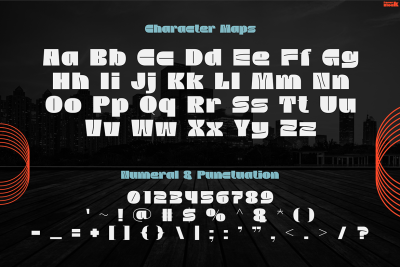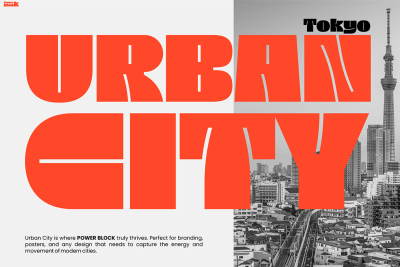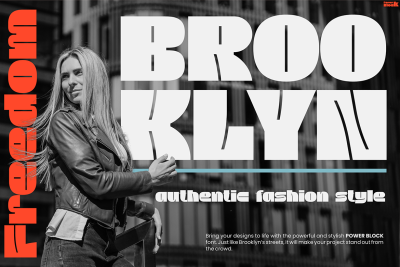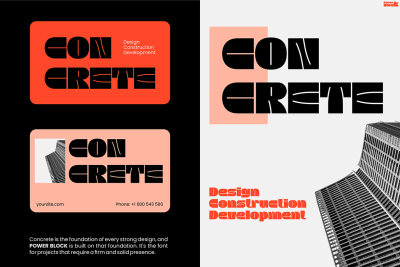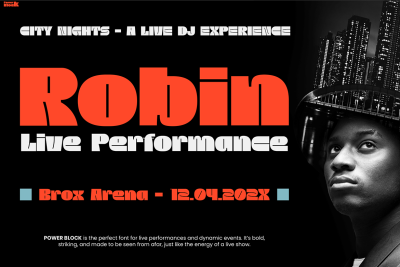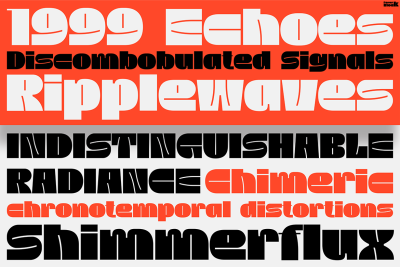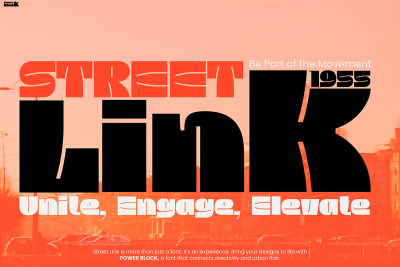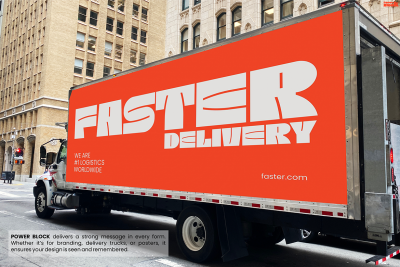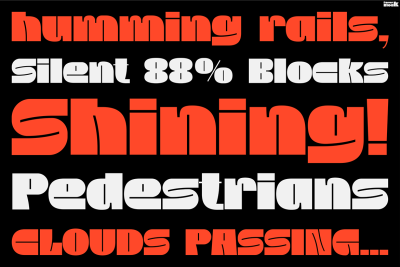
Retro Font Power Block is a bold and dynamic typeface designed to make a strong visual statement. With chunky, block-style letters and a vintage urban aesthetic, this font blends retro charm with a modern edge. Moreover, its unique combination of geometric precision and subtle irregularities creates a raw, energetic feel. Whether for headlines, posters, or branding, this typeface delivers an unforgettable impact.
What Makes It Unique?
This font stands out due to its heavy strokes, high readability, and vintage inspiration. Drawing influence from old billboards, street art, and classic signage, it maintains a nostalgic yet contemporary appeal. In addition, the slightly distressed edges and unconventional lines give it character, making any design look authentic and full of personality.
Retro Font cprovides versatility across different styles. Furthermore, its bold structure ensures visibility, while subtle details add artistic depth. Whether you want a classic retro feel or a striking modern look, this typeface adapts effortlessly. The combination of thick uppercase letters and slight width variations creates movement, making it engaging and visually dynamic.
Who Can Benefit from This Font?
- Graphic Designers & Branding Experts: Perfect for logos, packaging, and advertisements that require a standout visual identity.
- Streetwear & Fashion Brands: A great fit for clothing labels, merchandise, and promotional materials with an urban edge.
- Musicians & Entertainment Industry: Ideal for album covers, concert posters, and event branding needing a strong, eye-catching design.
- Social Media Content Creators: Consequently, it enhances engagement by making posts, banners, and thumbnails more visually striking.
- Event Planners & Nightlife Promotions: Adds energy and excitement to club flyers, festival branding, and digital campaigns.
- Advertising & Marketing Professionals: Ensures attention-grabbing visuals across digital and print media.
Elevate Your Designs with Retro Font Power Block
As a result, this typeface seamlessly merges nostalgia with contemporary design trends, creating a timeless yet fresh aesthetic. Additionally, its bold presence ensures your message stands out, while its artistic nuances add depth. Whether youโre designing a poster, launching a brand, or creating social media content, Retro Font Power Block is a must-have for impactful visual communication.
Ultimately, upgrading your design toolkit with Retro Font Power Block will bring your creative ideas to life!